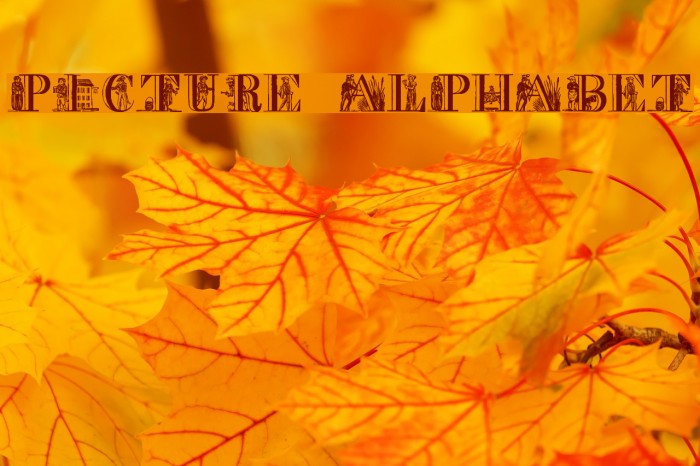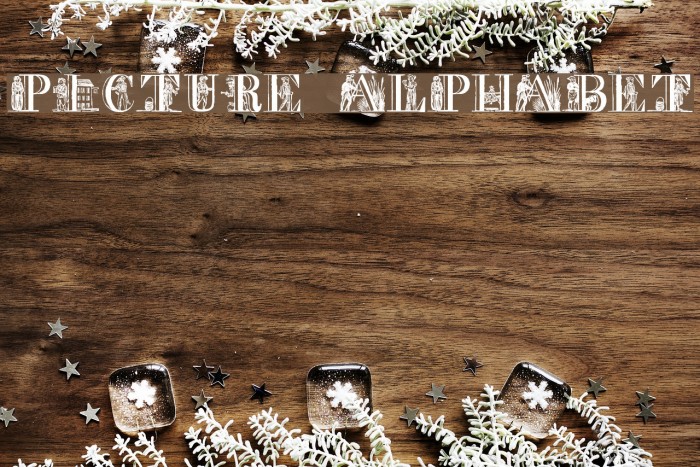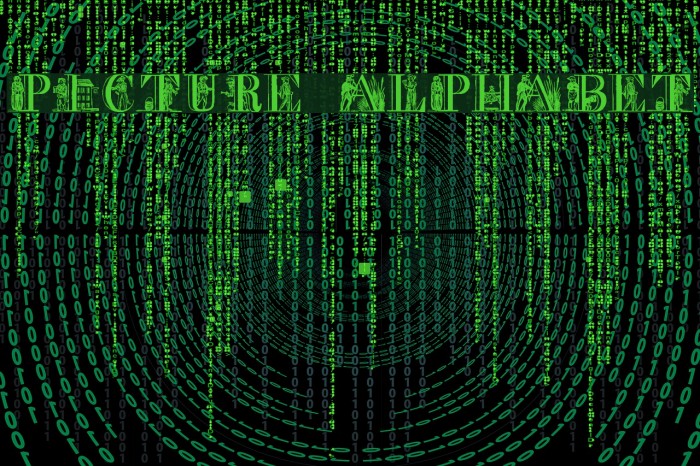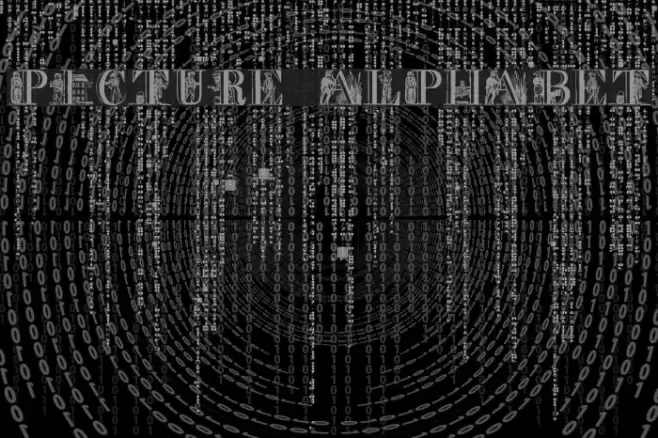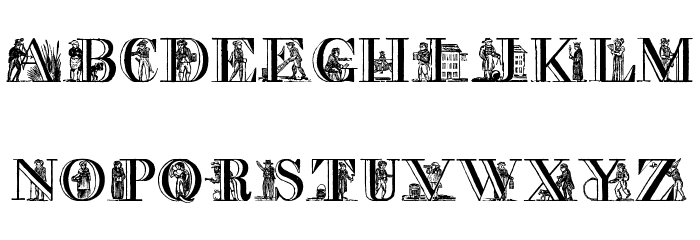
Picture Alphabet Font
Picture Alphabet Description
This decorative font features intricate illustrations within each letter, creating a unique and artistic appearance. Each character is filled with detailed imagery that adds a layer of complexity and visual interest. The font is designed to capture attention with its ornate style, making it ideal for creative and artistic projects. The uppercase letters are particularly striking, with each one showcasing a different scene or motif. This font is perfect for projects that require a touch of elegance and sophistication, such as invitations, posters, or branding materials that aim to stand out.
| Proposed Projects | Ideal for invitations, posters, branding, and artistic projects requiring a unique and sophisticated touch. |